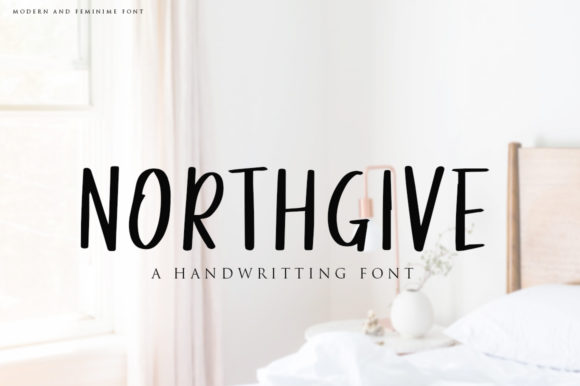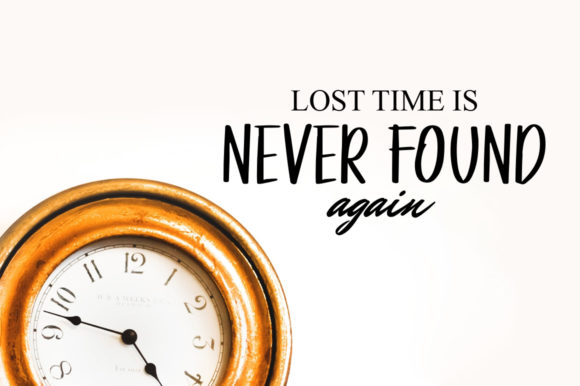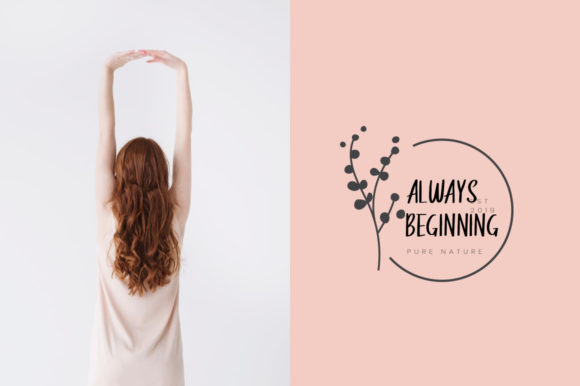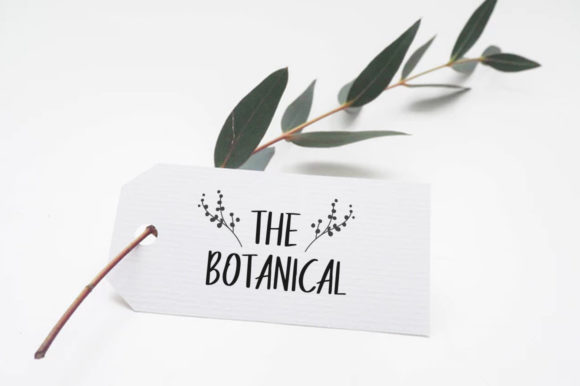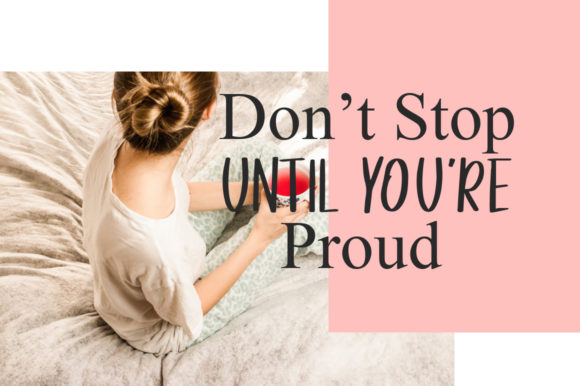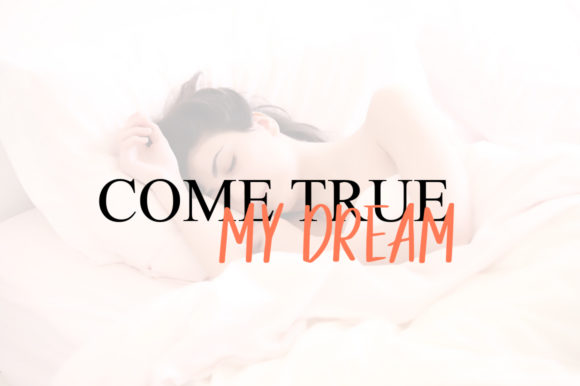
Northgive Font
About Northgive Font
The Northgive is a cheerful handmade brush font. It includes a bold weight which is perfect for adding some romance and charm to your designs.
This script functions most strongly as a display or headline font but is also suitable for logos, branding, fashion, labels, book covers, t-shirts, Instagram posts, and much more!